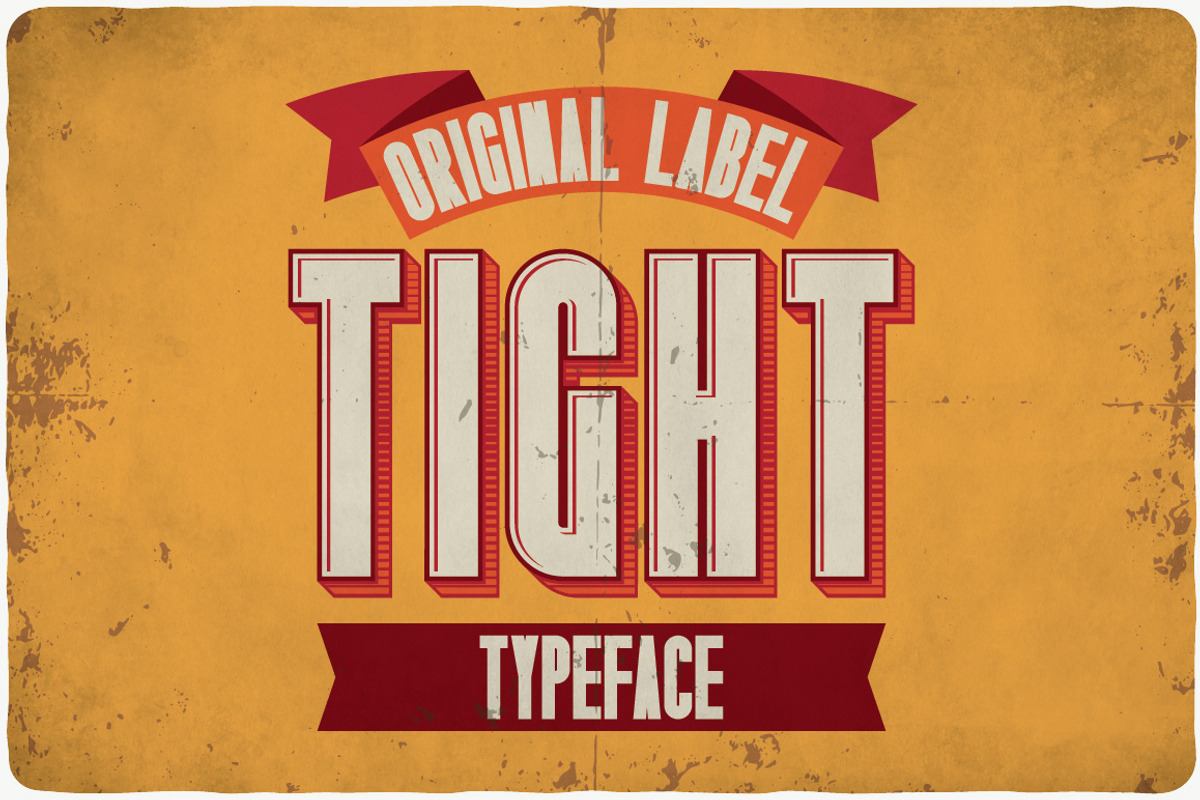
Tight Typeface Free Download is a sleek, modern font designed with precision and attitude. With condensed letterforms and a minimalist approach, this typeface is perfect for editorial layouts, fashion branding, bold headlines, and digital projects that demand clarity with a side of cool.
Tight Typeface Free Download brings a clean and contemporary feel to any design, combining narrow spacing with geometric balance. Its compact structure is ideal for space-saving compositions without sacrificing visual impact. Whether you’re crafting a magazine spread, stylish website, or high-contrast poster, Tight gets the message across—loud and clear.
This typeface thrives in modern aesthetics, monochrome palettes, and bold typographic statements. It’s a favorite for designers who love to keep things clean, sharp, and confidently minimal.
So if your design needs to say more with less—Tight keeps it all together, no extra fluff.